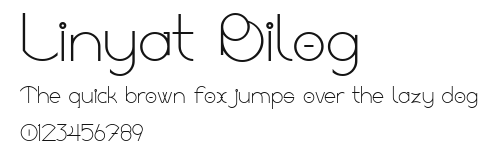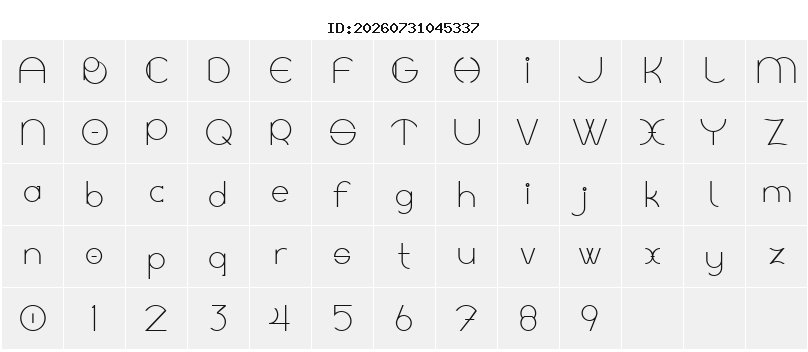
Linyat Bilog Preview
• Font Name: Linyat Bilog
• Copyright: ©Toto, 2010. A line and circle font to commemorate the Triple 10 Day [October 10, 2010]
• Designer: c.i.gulmatico.jr.
• Description: A font made up of lines and circles, using Fontlab's rectangle and ellipse tool. - Toto Ika-10 ng Oktubre 2010 Kyusi, Pilipinas toto@ispx.com.ph
Linyat Bilog.ttf is a modern, elegant sans-serif font designed for ultimate readability and visual harmony. Perfect for branding, headlines, web design, and print materials.